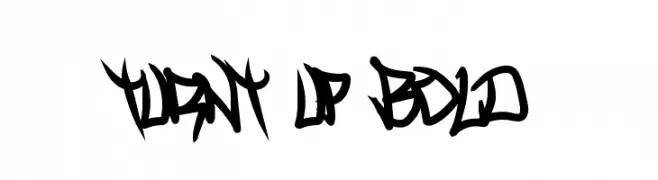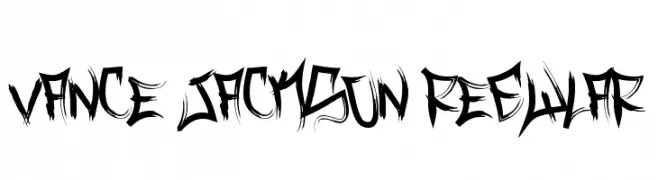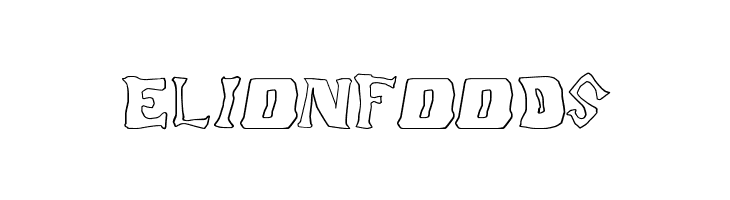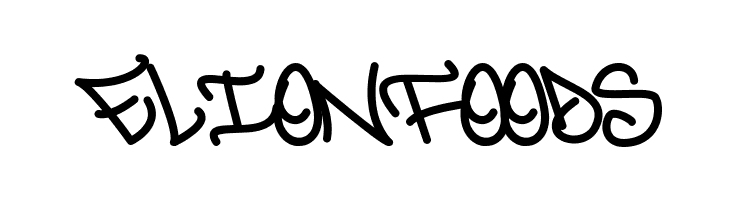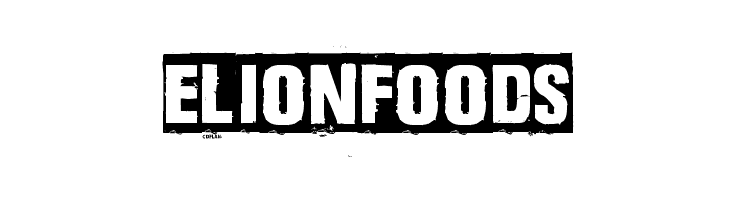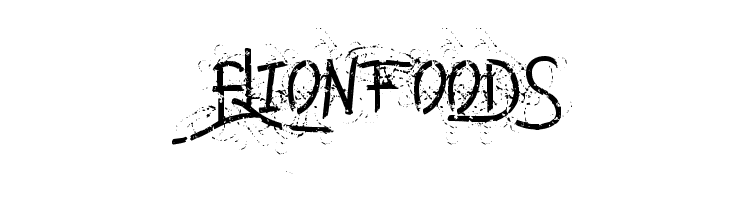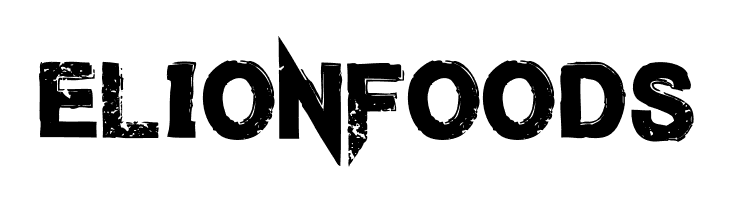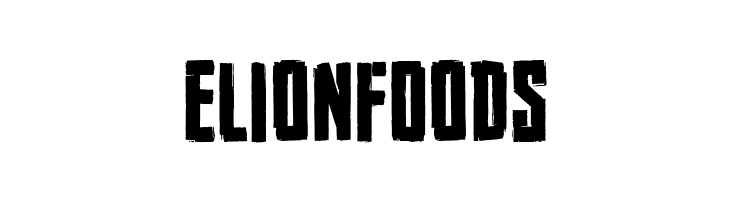
An edgy, graffiti-inspired font with sharp, angular lines and a rebellious style.
A bold, graffiti-inspired font with sharp, angular lines and dynamic strokes.
A bold, graffiti-inspired font with dynamic, interconnected forms.
A bold, graffiti-inspired font with dynamic, angular strokes and an urban feel.
A bold, distressed font with a gritty, urban aesthetic.
A bold, distressed font with a grunge texture and rugged appearance.
A bold, textured font with a rugged, distressed style.
A bold, distressed font with a rugged, textured appearance.